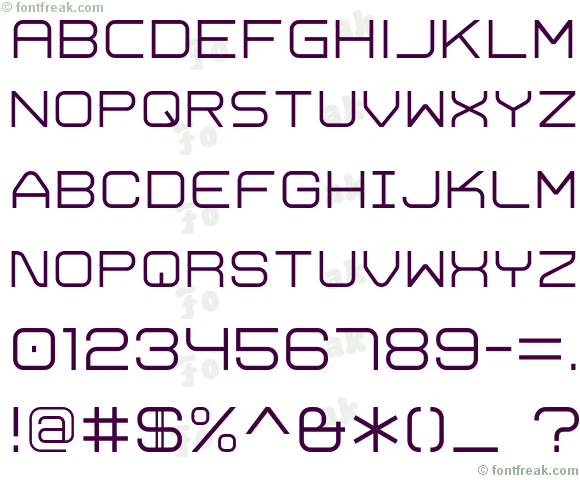
About Trivial
Trivial by Yeah Noah is a captivating sans-serif font that showcases a unique blend of modernity and playfulness. This font falls under the category of display typefaces, making it an excellent choice for projects that require eye-catching typography. The visual characteristics of the Trivial font include a range of stroke weights, from ultralight to bold, providing versatility in expression. Its clean lines and geometric shapes create a contemporary look, while the generous spacing between letters enhances readability. The overall aesthetic is minimalist yet striking, making it suitable for various applications.
This font is ideal for several specific use cases. Its playful yet professional nature makes it perfect for branding projects, especially for small businesses looking to establish a memorable identity. Trivial excels in creating engaging restaurant menus that draw attention and evoke a sense of modern dining. Additionally, it works well on movie posters, where its boldness can effectively convey the film's theme. The font can also enhance wedding invitations, adding a touch of elegance without being overly ornate.
What sets the Trivial font apart is its ability to balance simplicity with personality. This makes it a valuable asset for anyone seeking a versatile typeface that can adapt to various design needs. With the Trivial font free download, users can easily incorporate this unique typeface into their creative toolkit, enhancing their projects with its distinctive flair.